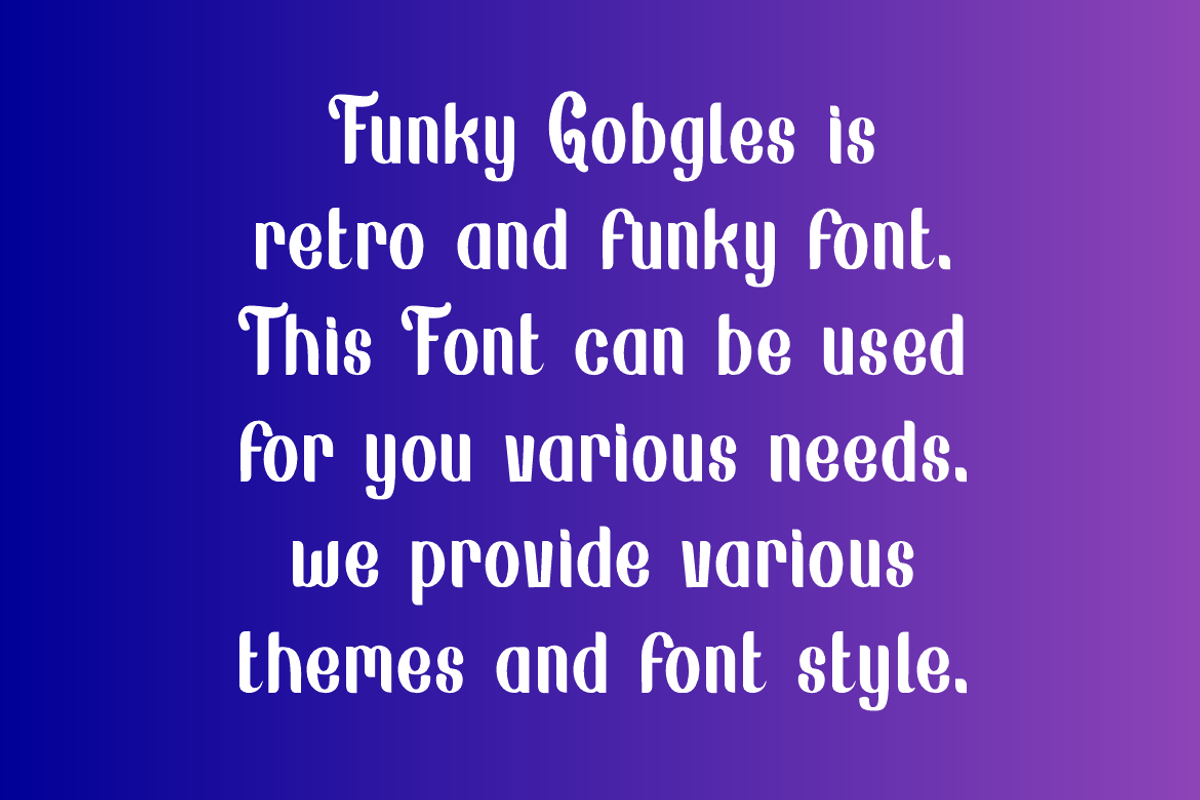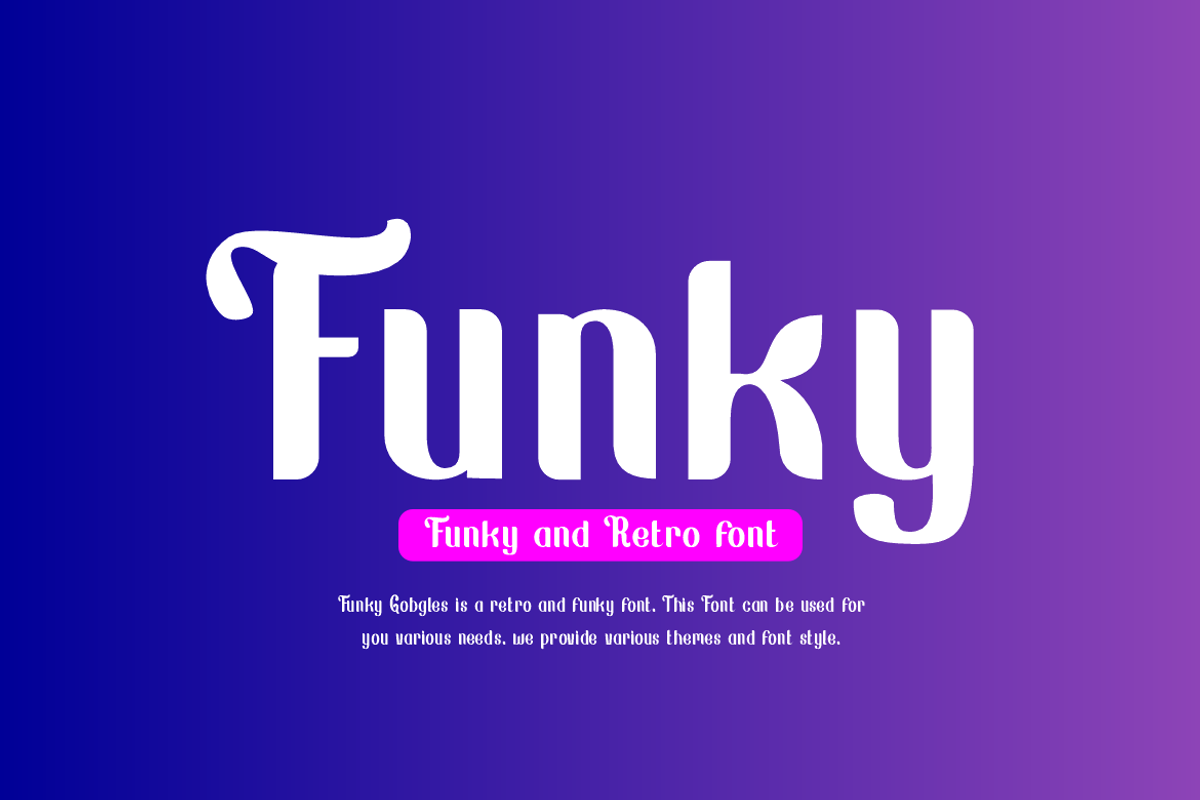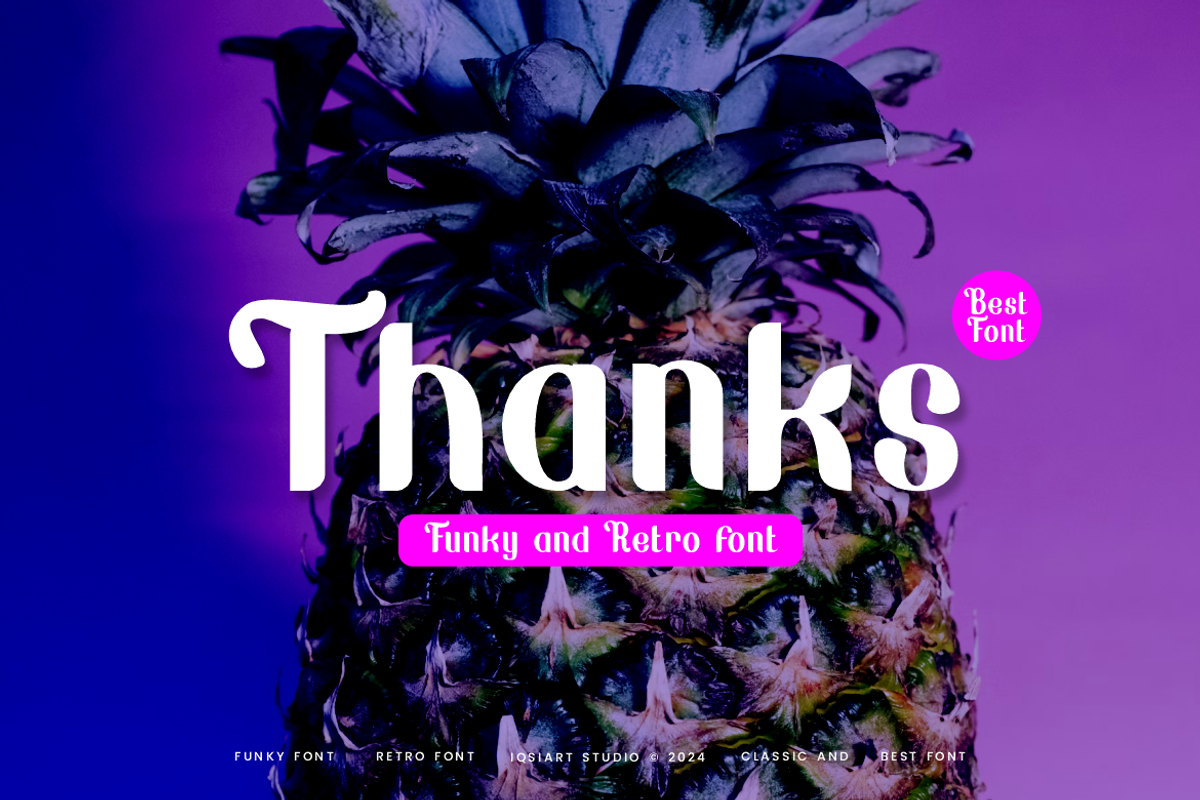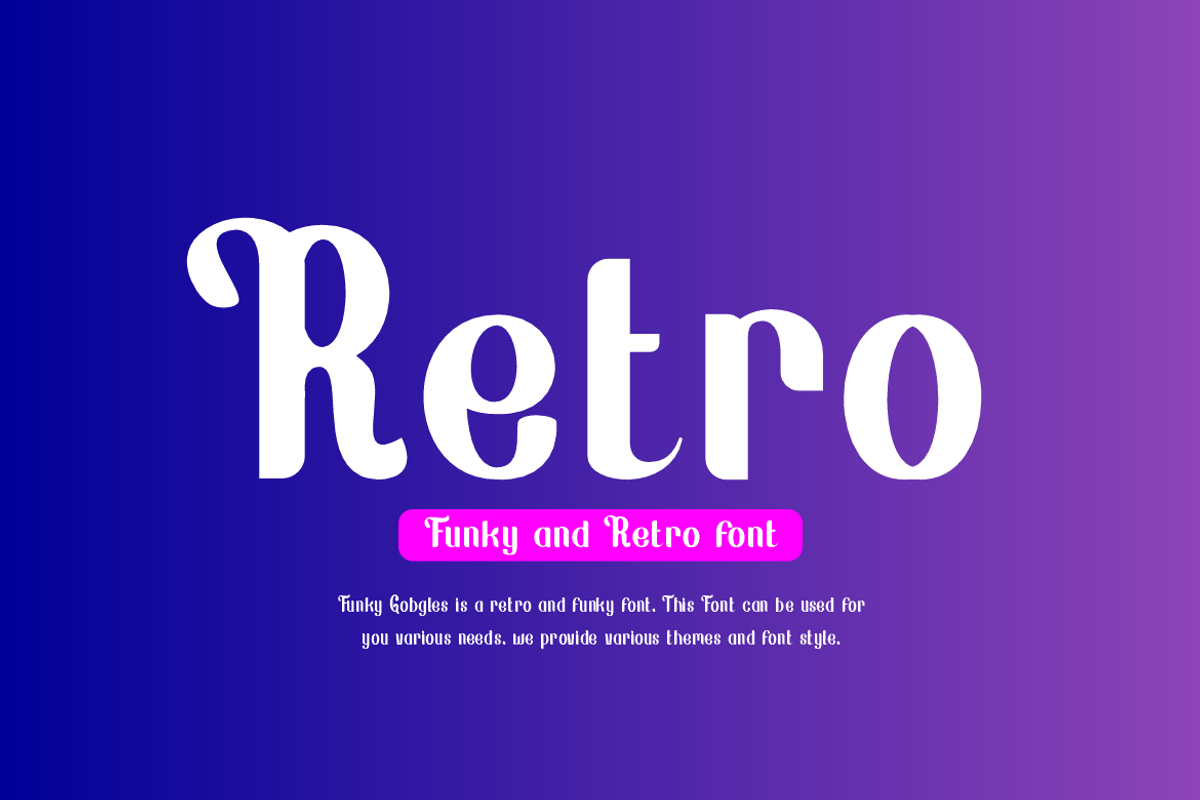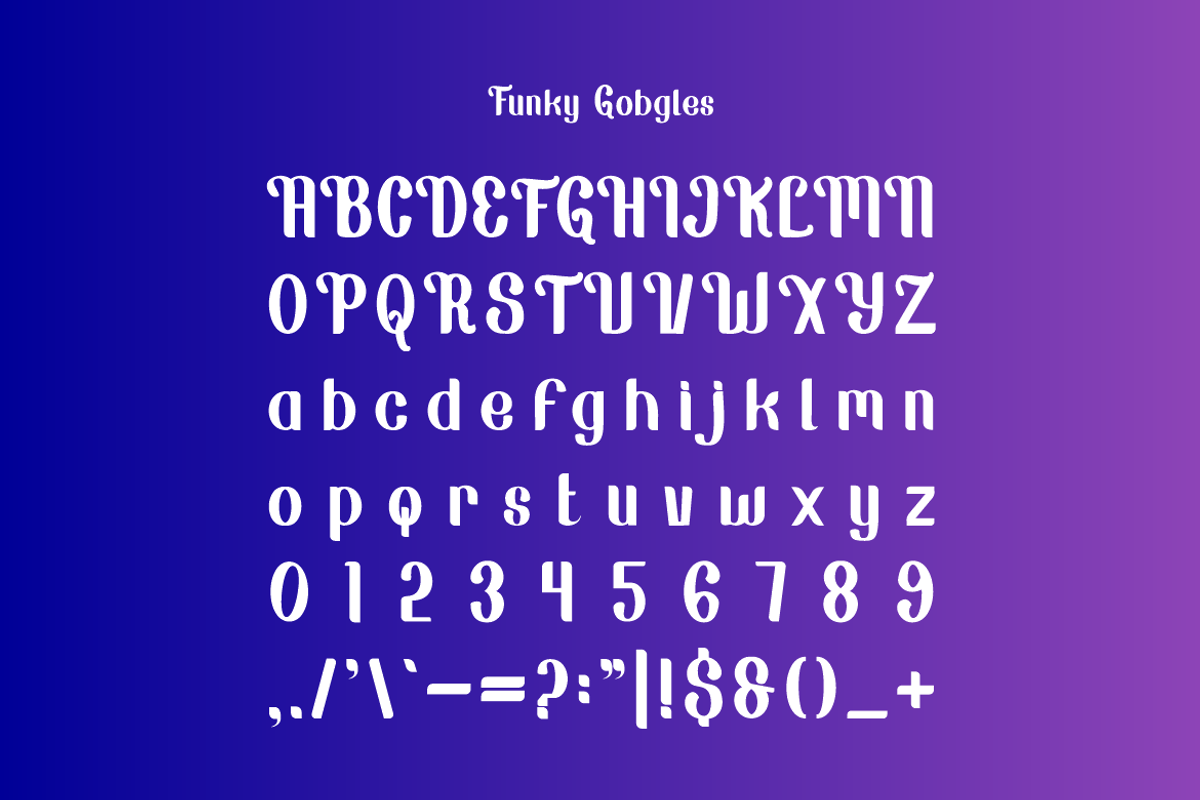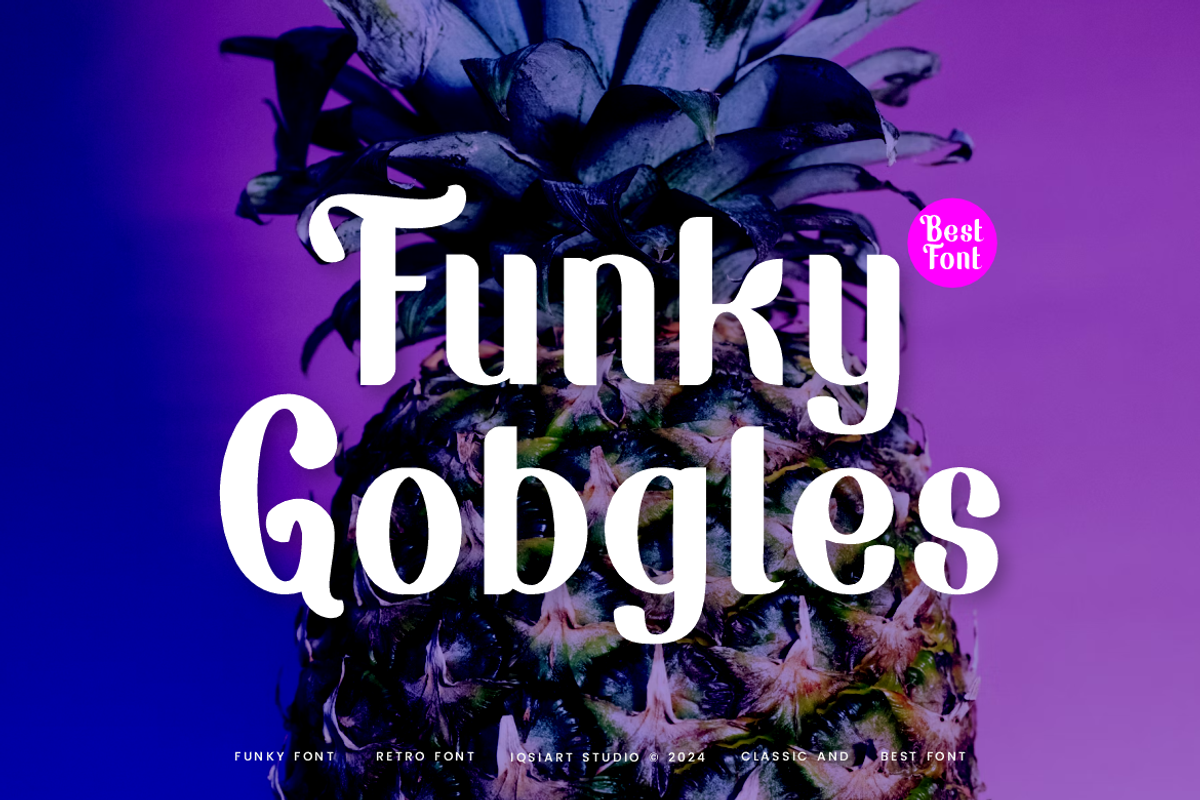
Funky Gobgles - Retro Font
Funky Gobgles Font is a best and authentic display font. This font can be used for your various needs. We provide various themes and font styles. visit our profile to get a wide variety of themes and different font styles you need.